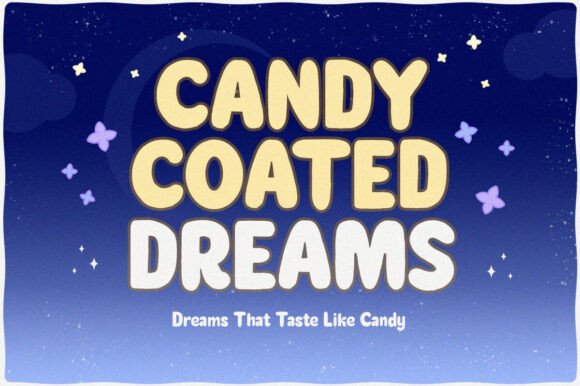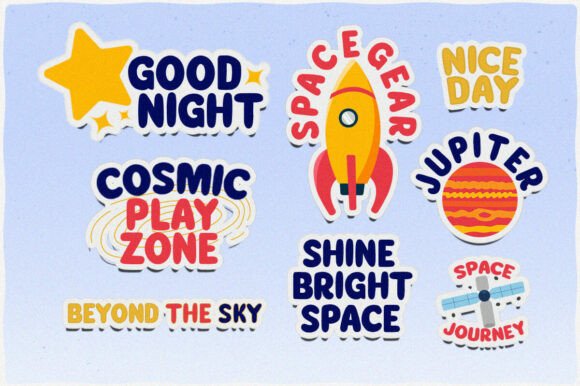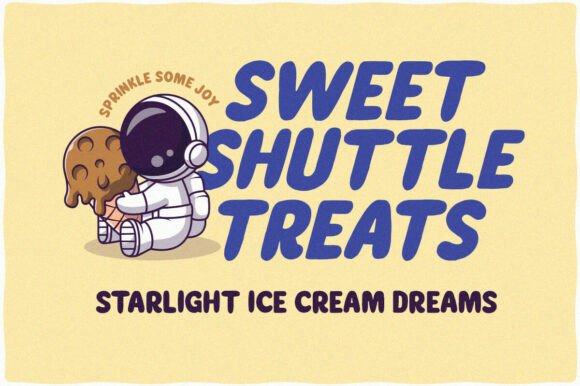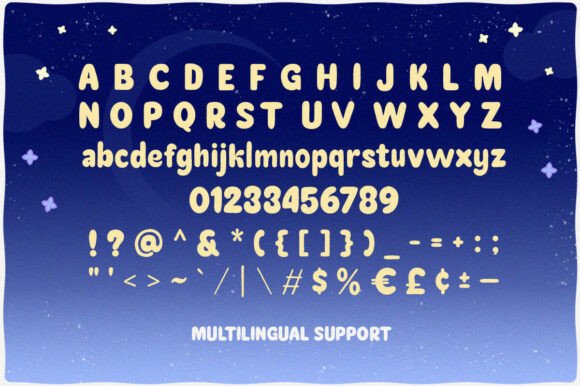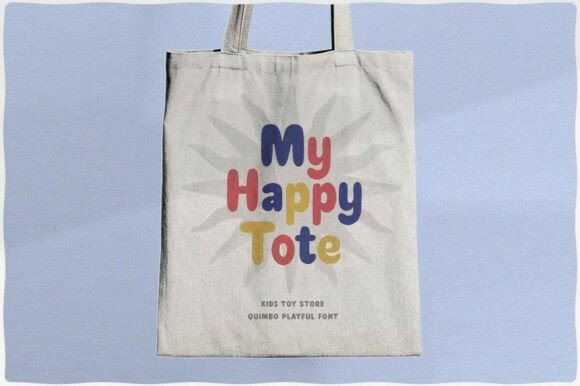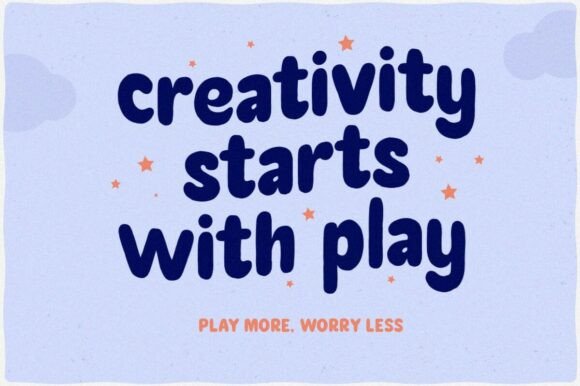
Introduction to Quimbo Font
Who hasn’t experienced that moment when you’re working on a creative project and you just can’t seem to find the right font to match your vision? The words feel flat, the colors are dull, and the overall mood of the design just isn’t quite right. But what if you could add a touch of magic to your typography, making every word feel like it’s smiling back at you?
Enter Quimbo Font, a delightful bubble font designed to bring joy, color, and personality to your every creative project. With its smooth rounded shapes, soft curves, and friendly cartoon aesthetic, Quimbo is the perfect design resource for anyone looking to add a high-quality, fun twist to their typography.
Whether you’re a seasoned designer or a crafter looking for a free download to elevate your projects, Quimbo Font is a valuable addition to your design toolbox. Its transparent background and flexible creative options make it perfect for titles, posters, packaging, and more. So why settle for dull typography when you can add a dash of whimsy and personality with Quimbo Font?
Key Features of Quimbo Font
- Unique, customizable font with a transparent background, allowing for seamless integration into various design elements.
- Designed with precision, featuring a resolution of 300 DPI for crisp and clear text display.
- Font size ranges from 12 to 72 points, providing flexibility for various design applications.
- Quimbo Font is ideal for use in logos, branding materials, and other design projects where a creative, high-quality font is required.
Honest Review: Quimbo Font
As a designer, I’m always on the lookout for high quality, free design resources that can elevate my creative projects. I recently stumbled upon the Quimbo Font, and I have to say, it’s a gem.
Here are some things that I think work well: ✨
- Unique Character Set – The Quimbo Font has a quirky, hand-drawn feel that adds a lot of personality to any design project.
- Transparent Background – This makes it super easy to use as a design element in any creative project.
- High Resolution – The font is available in high resolution, making it perfect for printing or using in large-scale designs.
- Limited Styles – While the font itself is unique, the style options are somewhat limited.
- No Bold/Italic Options – If you’re looking for a font with a lot of bold or italic options, you might be disappointed.
Overall, I think the Quimbo Font is a great addition to any designer’s toolkit. It’s free, high quality, and adds a lot of character to any design project. Just be aware of its limitations, and you’ll be all set to create some amazing designs with this fantastic font.
Getting the Most Out of Quimbo Font
To maximize the potential of the Quimbo Font, try combining it with other design elements, such as icons or images. Experiment with different font styles and sizes to achieve a unique look for your design project.
Quimbo Font is perfect for a wide range of creative projects, including logos, branding materials, social media graphics, and more. Its versatility and high-quality features make it an excellent design resource for both professionals and hobbyists.